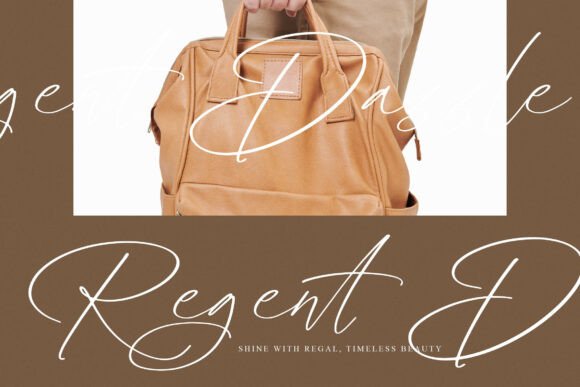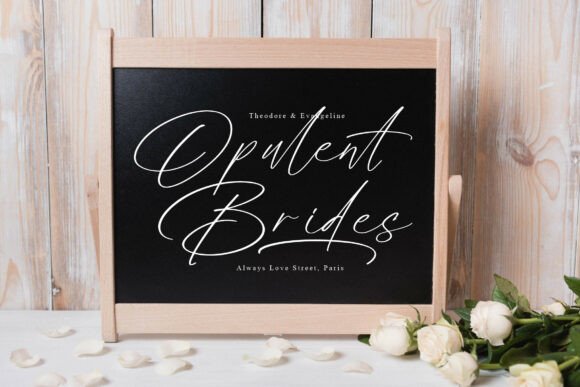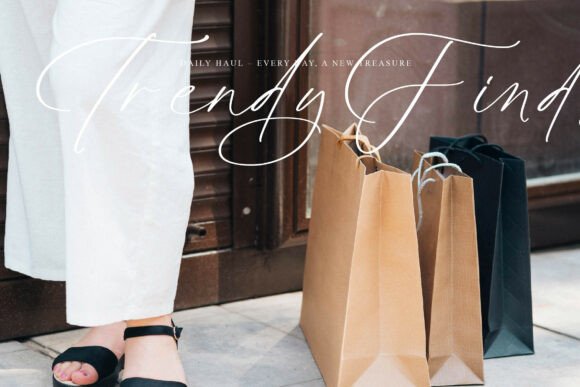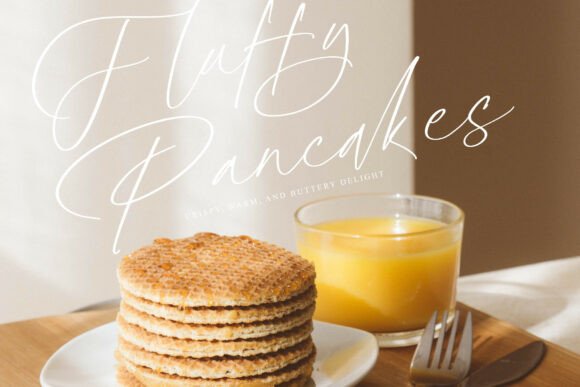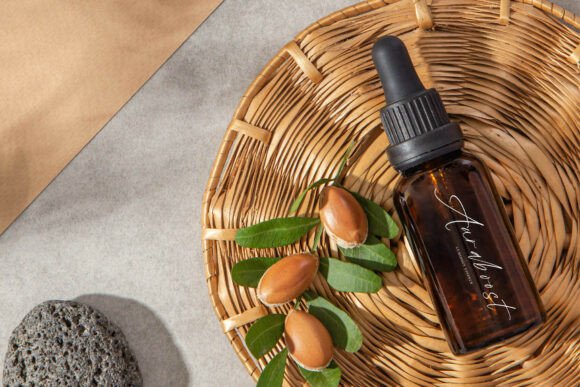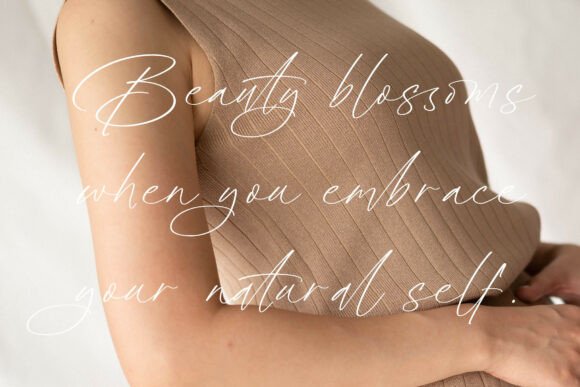
Introduction to Radiance Berlines Font
Remember the moment when you’re working on a creative project and you need that one font to make it truly special? For many designers, that moment is when they stumble upon the perfect script font. If you’re reading this, chances are you’re on the hunt for a high-quality font that will elevate your design to the next level. I’m excited to introduce you to Radiance Berlines Font, a stunning script font that’s about to become your go-to design resource.
With its sweeping curves and carefully crafted ligatures, Radiance Berlines Font is the perfect choice for designers looking to add a touch of sophistication to their projects. Whether you’re working on a fashion lookbook, a high-end branding project, or creating feminine stationery, this font is sure to impress. And the best part? It’s available for free download, making it a valuable resource for designers of all levels.
Key Features of Radiance Berlines Font
- High-quality design for creative projects: Radiance Berlines Font is a versatile font suitable for various design applications, including logos, typography, and branding materials.
- Unique characteristics: Radiance Berlines Font features a unique blend of modern and vintage elements, making it an ideal choice for designers looking for a distinctive and eye-catching font.
Honest Review: Radiance Berlines Font
As a designer, I’m always on the lookout for high-quality fonts to elevate my creative projects. The Radiance Berlines Font is one such discovery that caught my attention. In this review, I’ll share my thoughts on this free download and whether it’s a valuable design resource.
- ✨ Unique, elegant design that adds a touch of sophistication to any project.
- ✨ Highly legible even at small font sizes, making it perfect for body text.
- ⚠️ Limited character set, which may not be ideal for projects requiring extensive text.
- ⚠️ Not as versatile as some other fonts, which may limit its use in certain design contexts.
Overall, I’m impressed with the Radiance Berlines Font. While it may not be perfect for every project, it’s a valuable addition to any designer’s toolkit. Its elegant design and high legibility make it a great choice for creative projects where aesthetics matter.
Tips for Getting the Most Out of Radiance Berlines Font
Use this font in conjunction with other design elements to create a cohesive look. Experiment with different font sizes and styles to add visual interest to your design. Consider pairing this font with a bold or italic font for added contrast.
The Radiance Berlines Font is perfect for creative projects such as logos, social media graphics, branding, and presentations. Its high-quality design and transparent background make it a versatile resource for designers and non-designers alike.